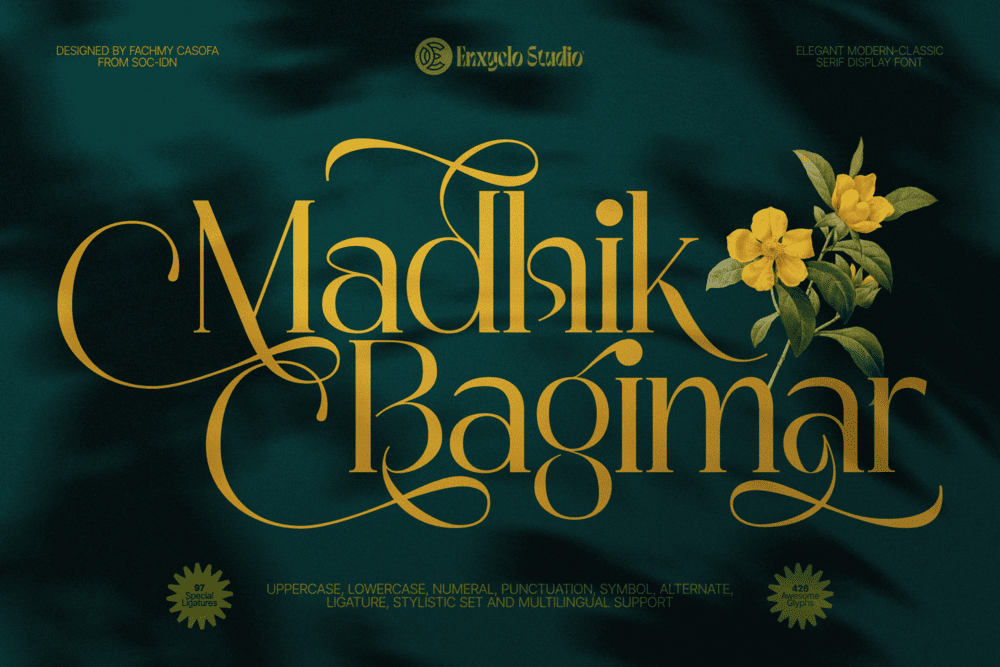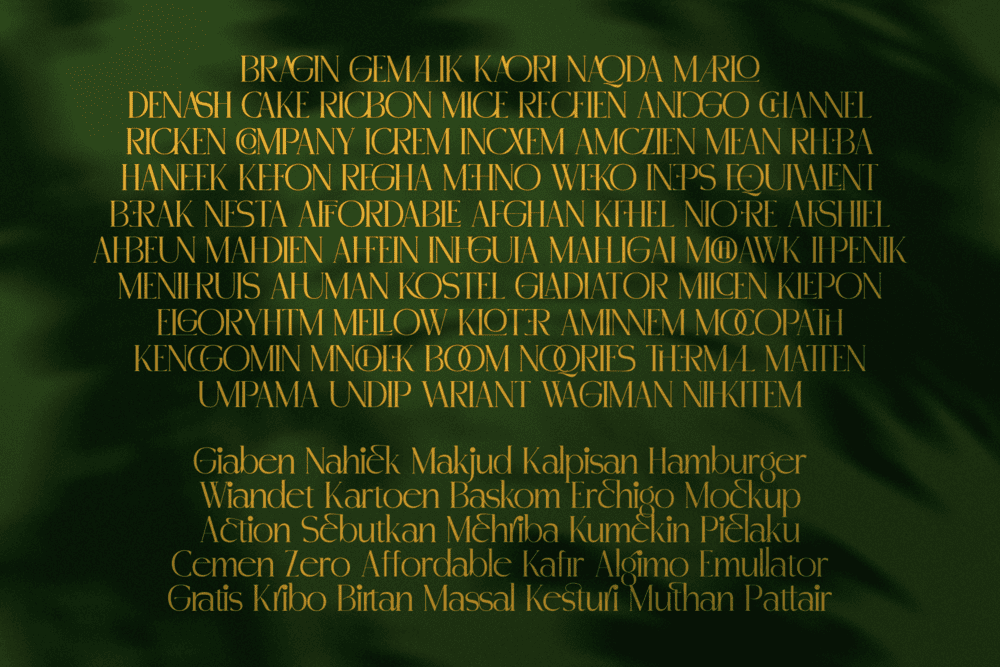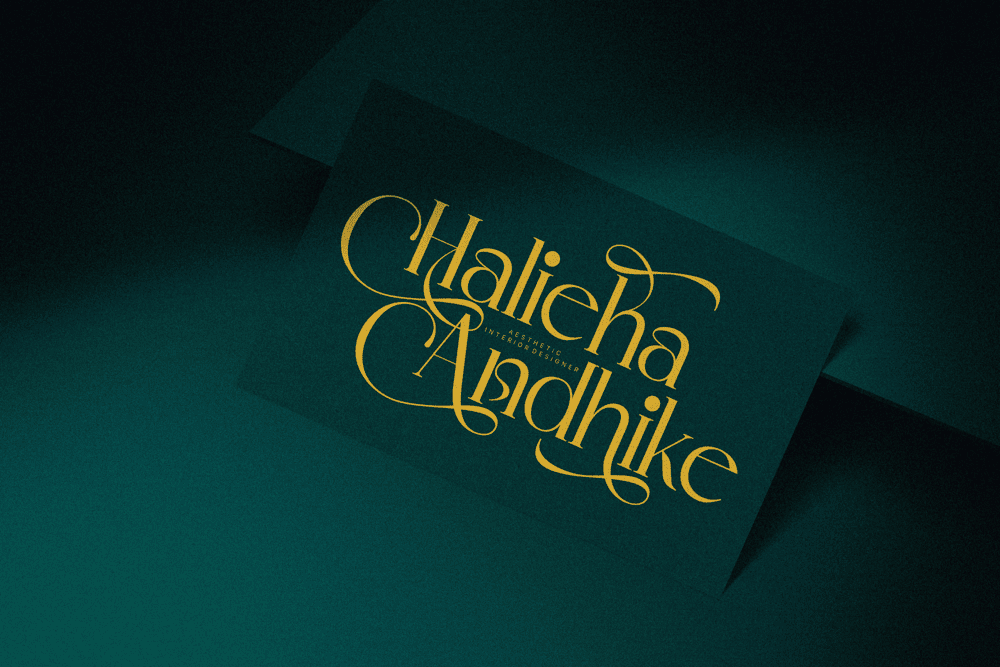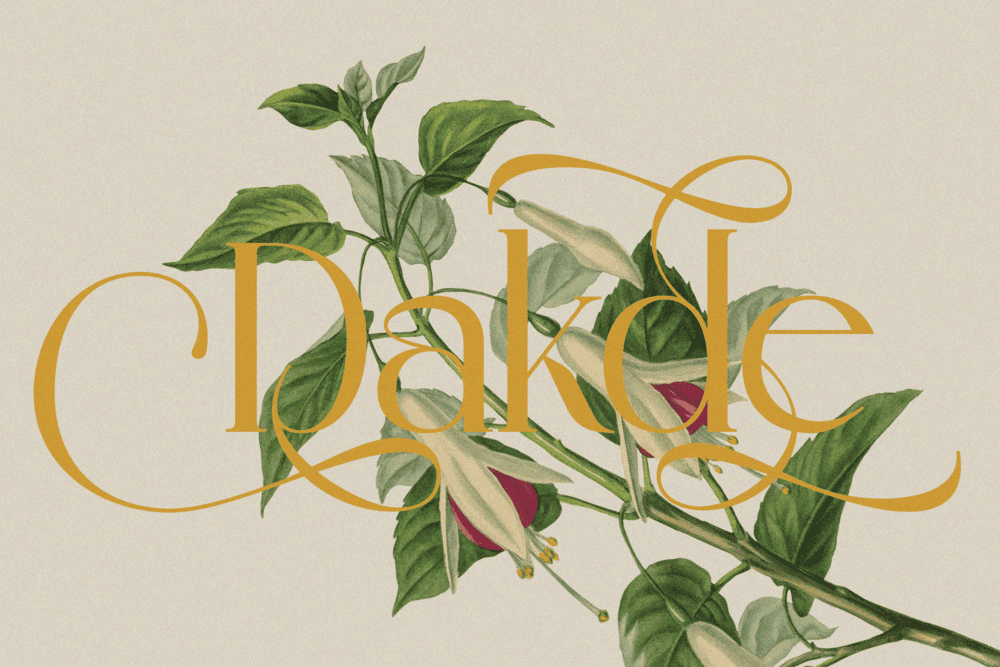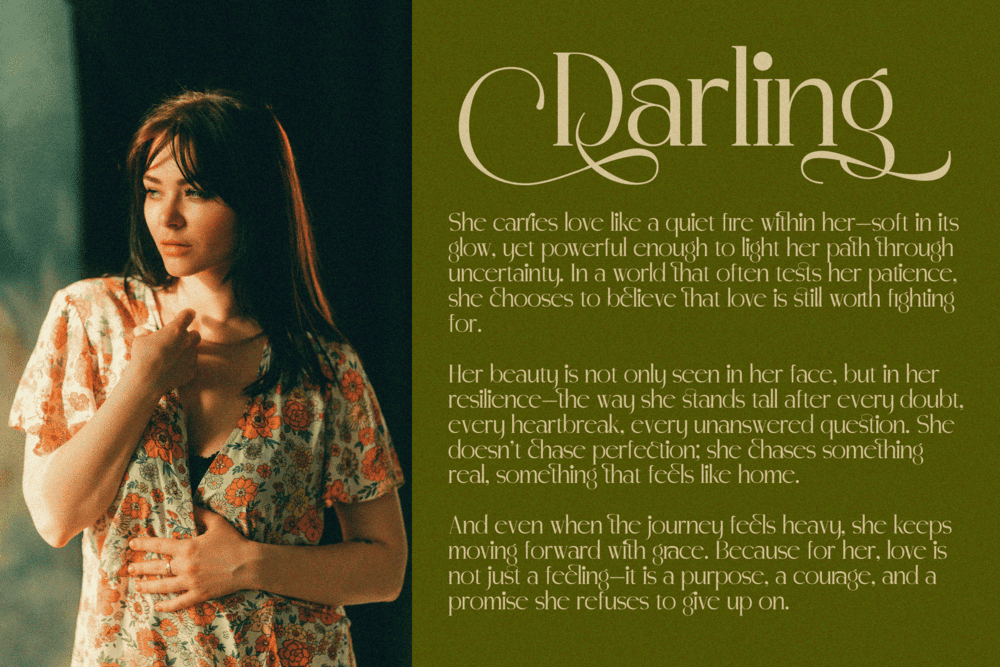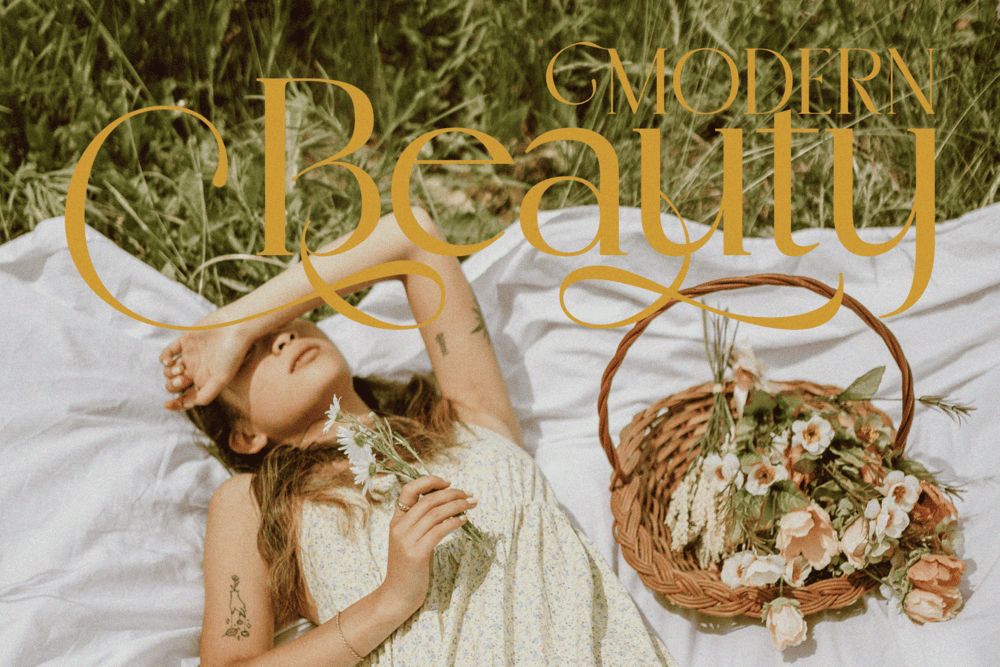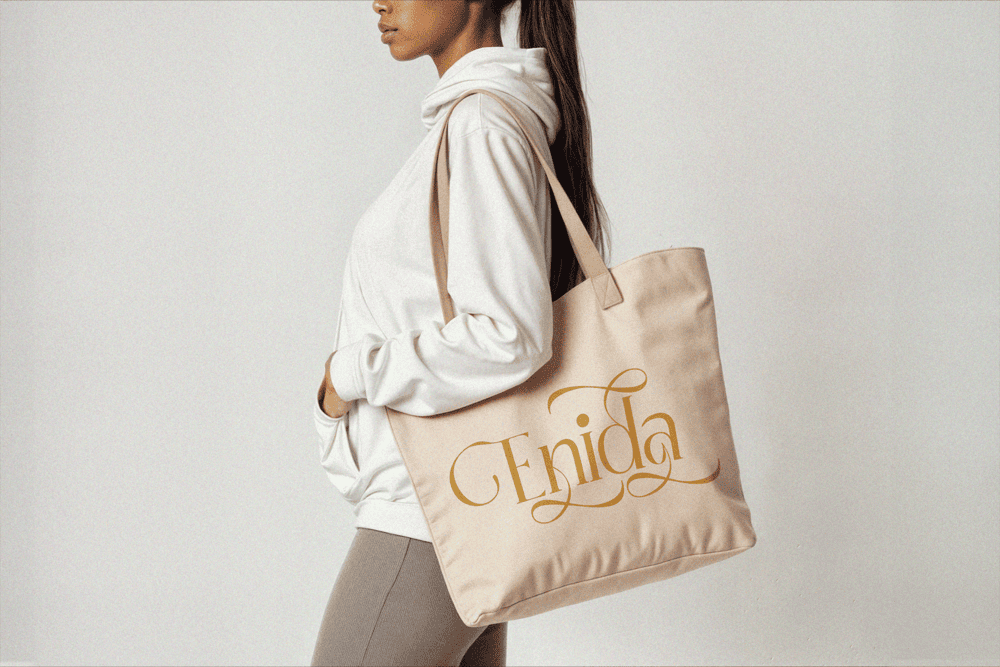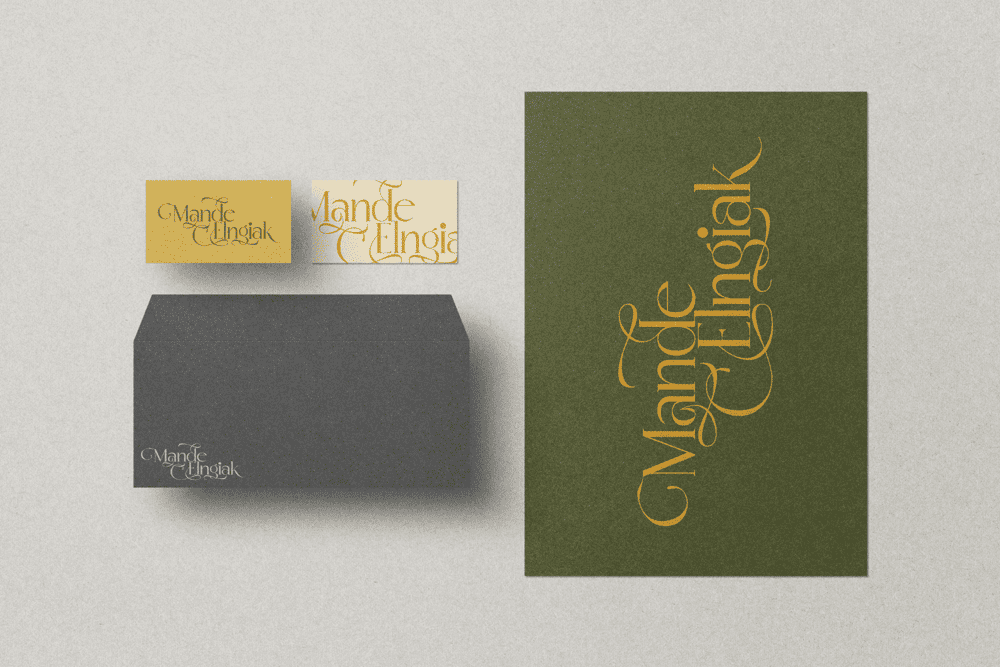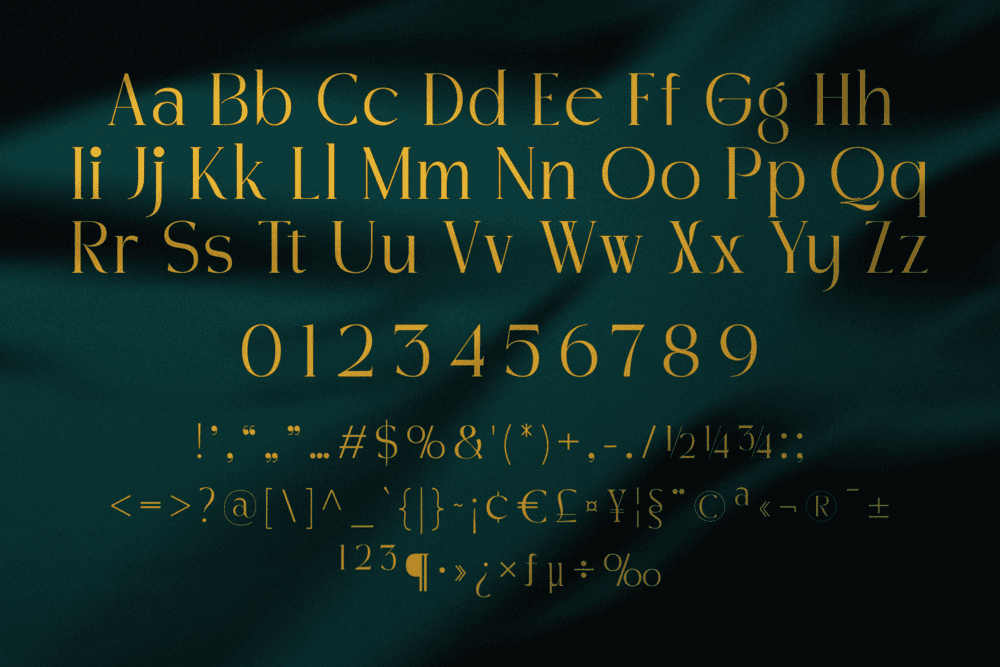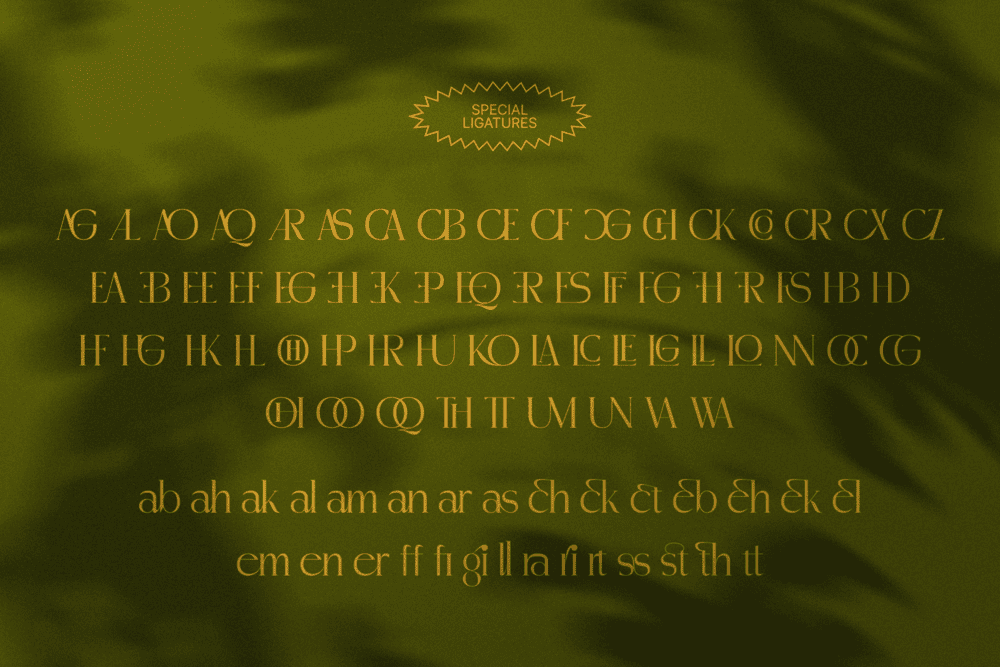
MADHIK BAGIMAR is an elegant luxury serif font designed to embody refinement, beauty, and timeless sophistication. With its graceful proportions, refined contrast, and delicate swash details, this typeface delivers a truly lavish and premium aesthetic—perfect for brands that want to communicate elegance with confidence.
Blending modern clarity with classic serif tradition, MADHIK BAGIMAR creates a rich visual identity that feels both contemporary and timeless. Each letterform is crafted with precision, offering a balance between bold presence and delicate elegance. The result is a font that feels luxurious, stylish, and effortlessly aesthetic—ideal for high-end logo design, fashion branding, and boutique visuals.
This font shines in industries where beauty and sophistication matter most. From cosmetic and skincare packaging to fashion labels and premium brand identities, MADHIK BAGIMAR adds a layer of glamour and exclusivity. Its elegant structure and flowing swash elements enhance every composition, turning simple text into a refined visual statement.
If you're looking to create a luxurious brand experience, MADHIK BAGIMAR delivers a powerful combination of elegance, richness, and modern design—making your work feel premium, polished, and unforgettable.
FEATURE
• Uppercase & Lowercase Letters
• Numeral, Punctuation Marks, Currencies & Symbol Set
• Alternate, Stylistic Set & Ligature
PERFECT FOR
• Luxury Logo & Logotype
• Fashion & Boutique Branding
• Beauty, Cosmetic & Skincare Packaging
• Premium Editorial & Magazine Design
• Elegant Invitations & Stationery
• Glamour Posters & Campaign Visuals
• High-End Product Labels